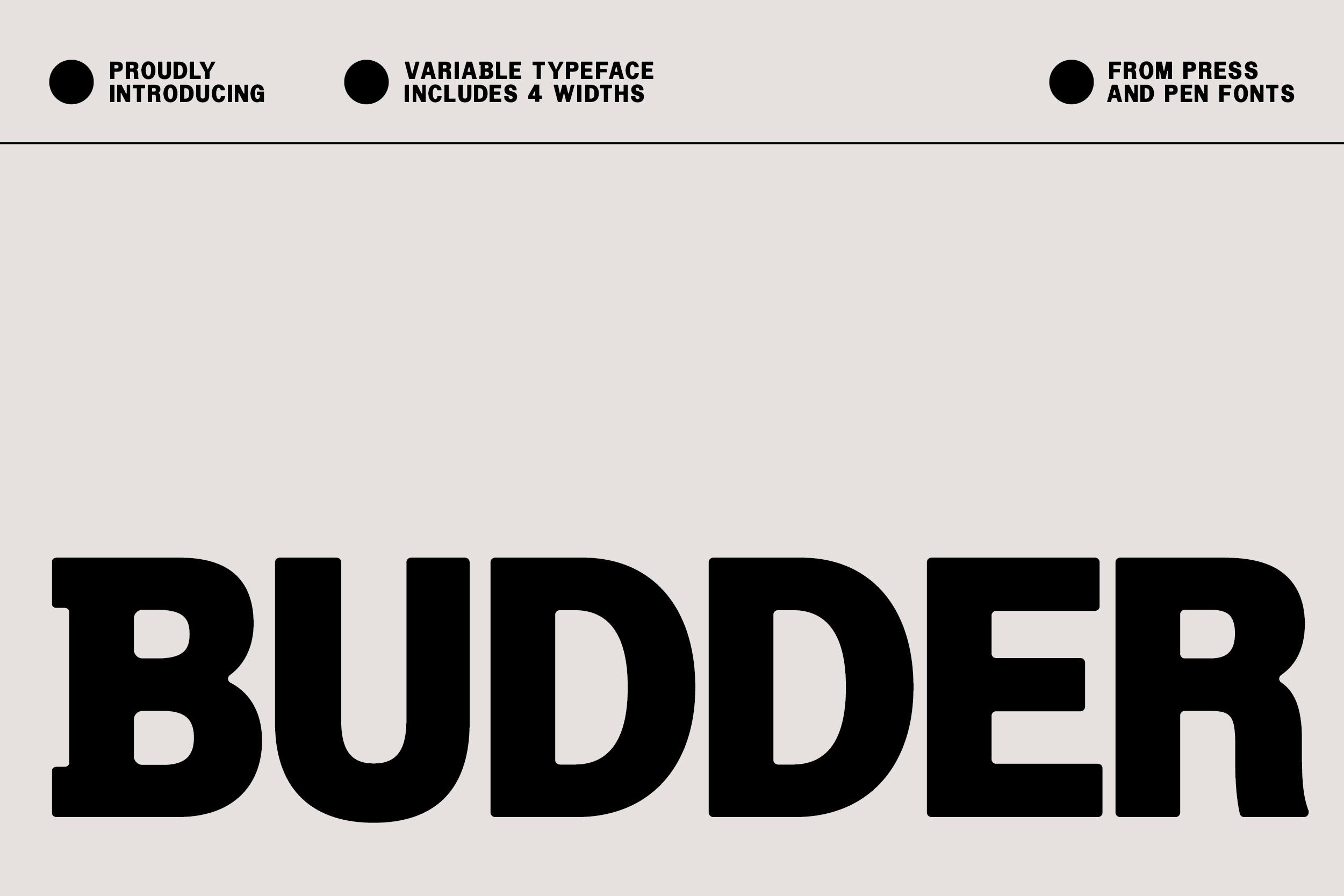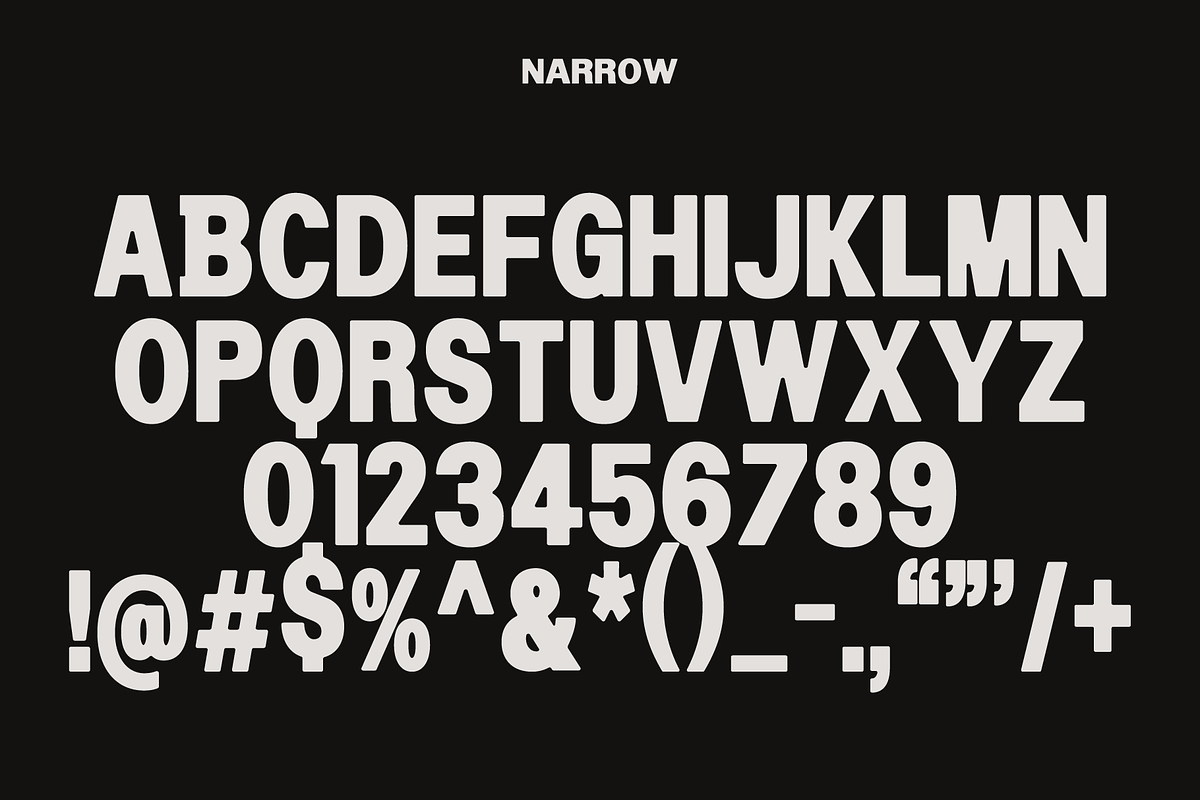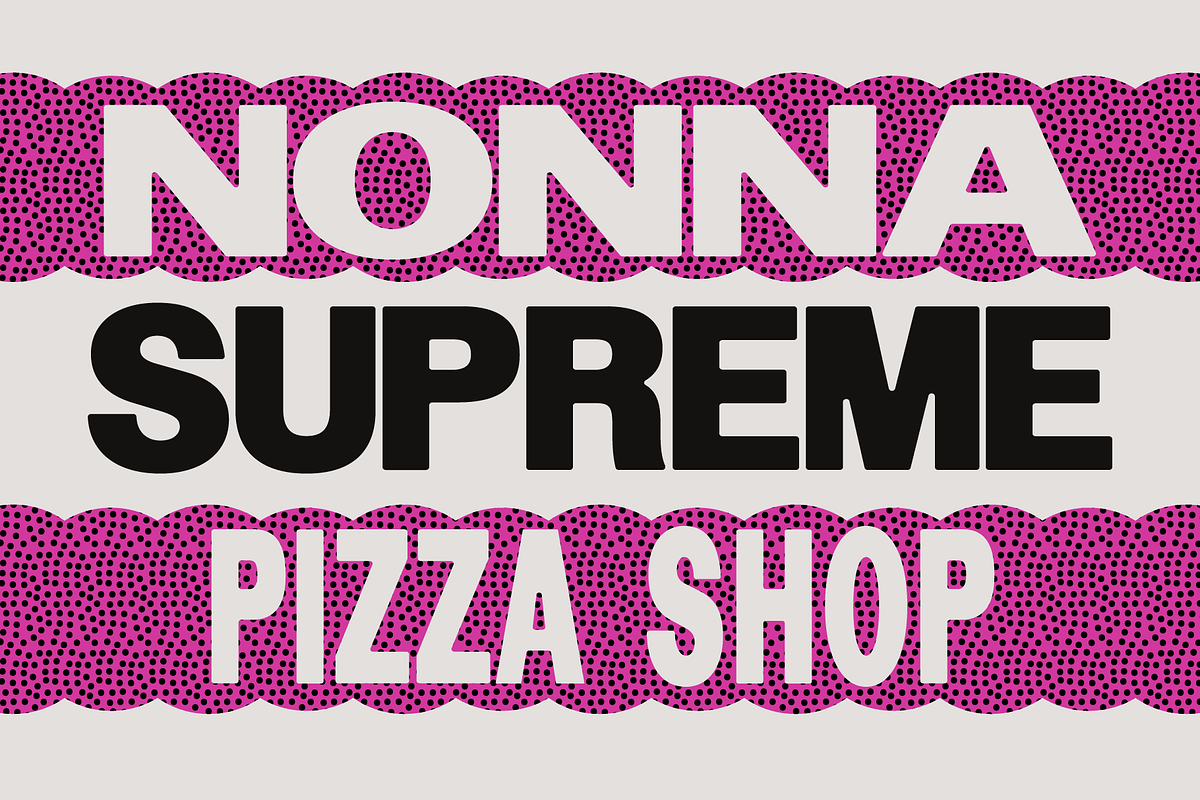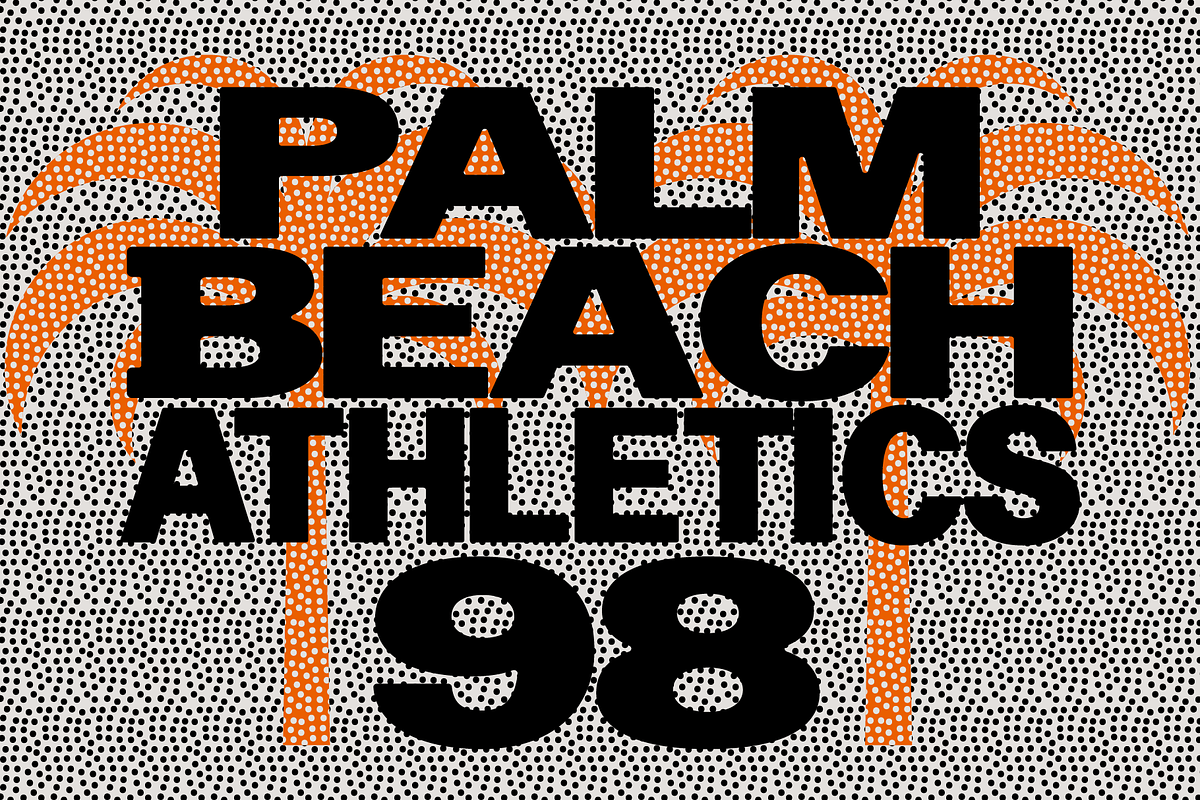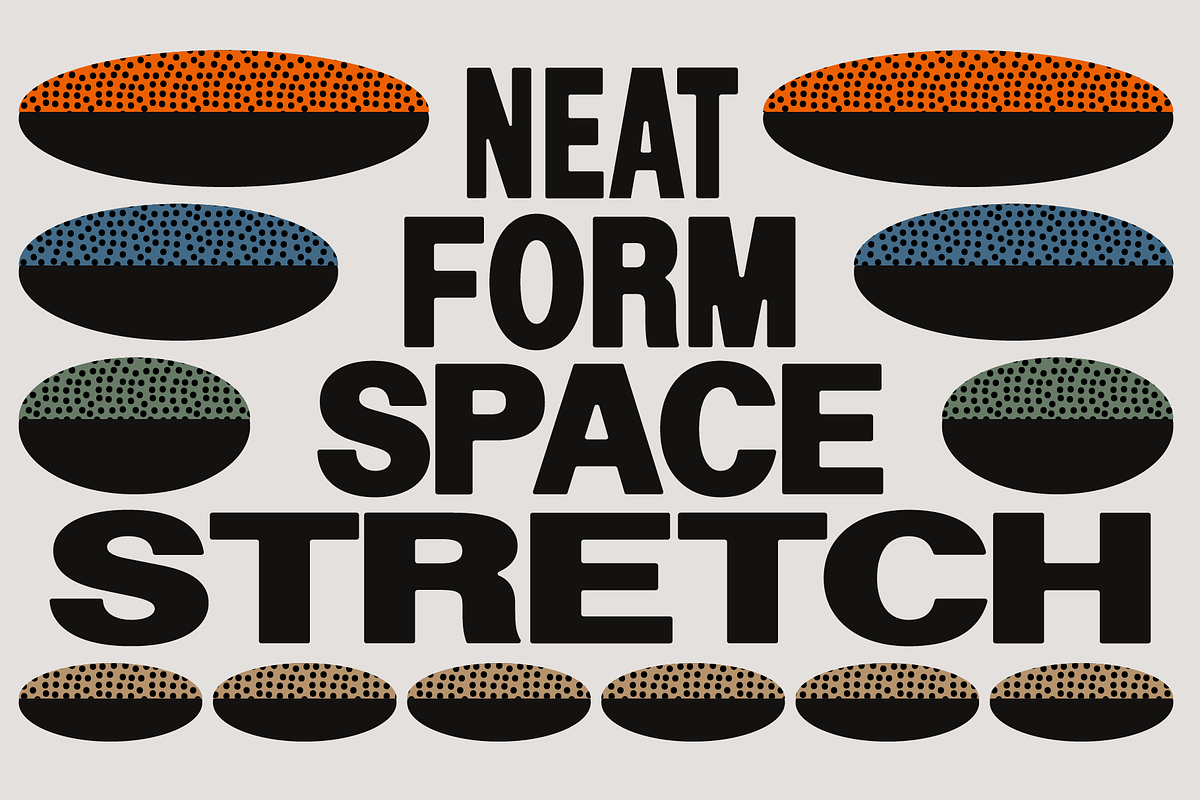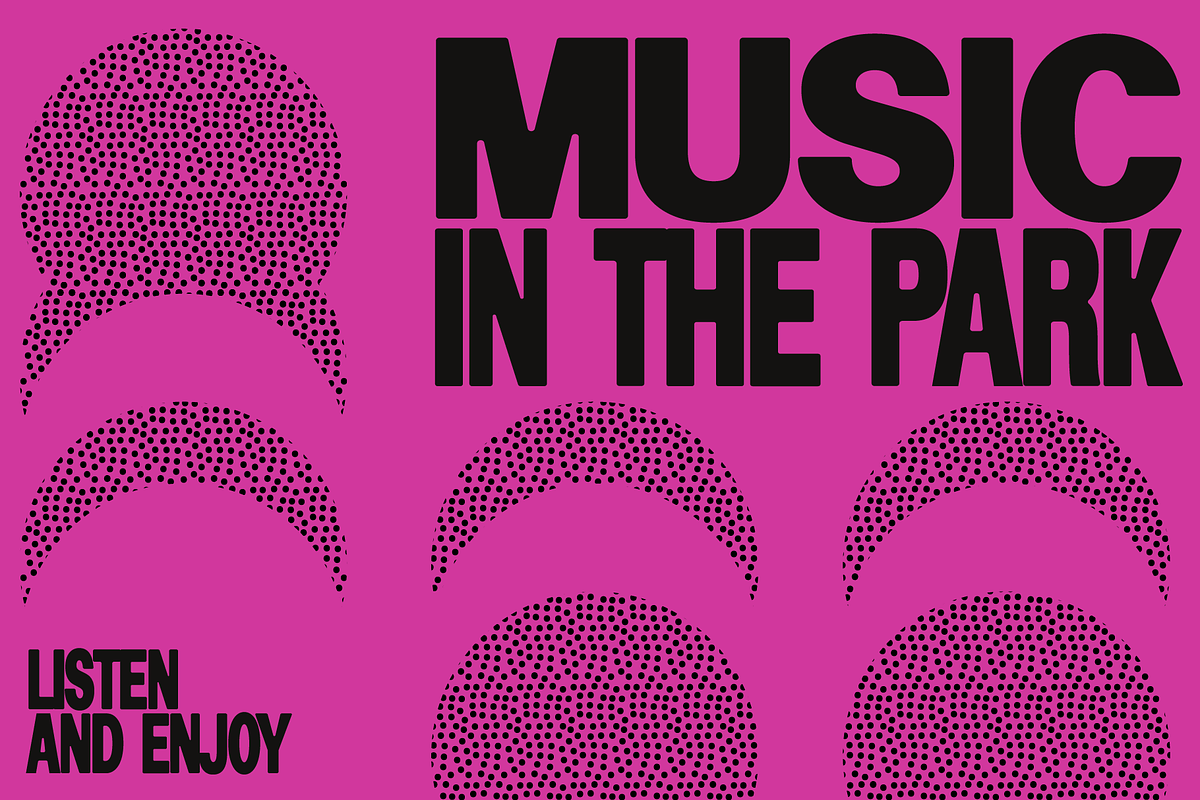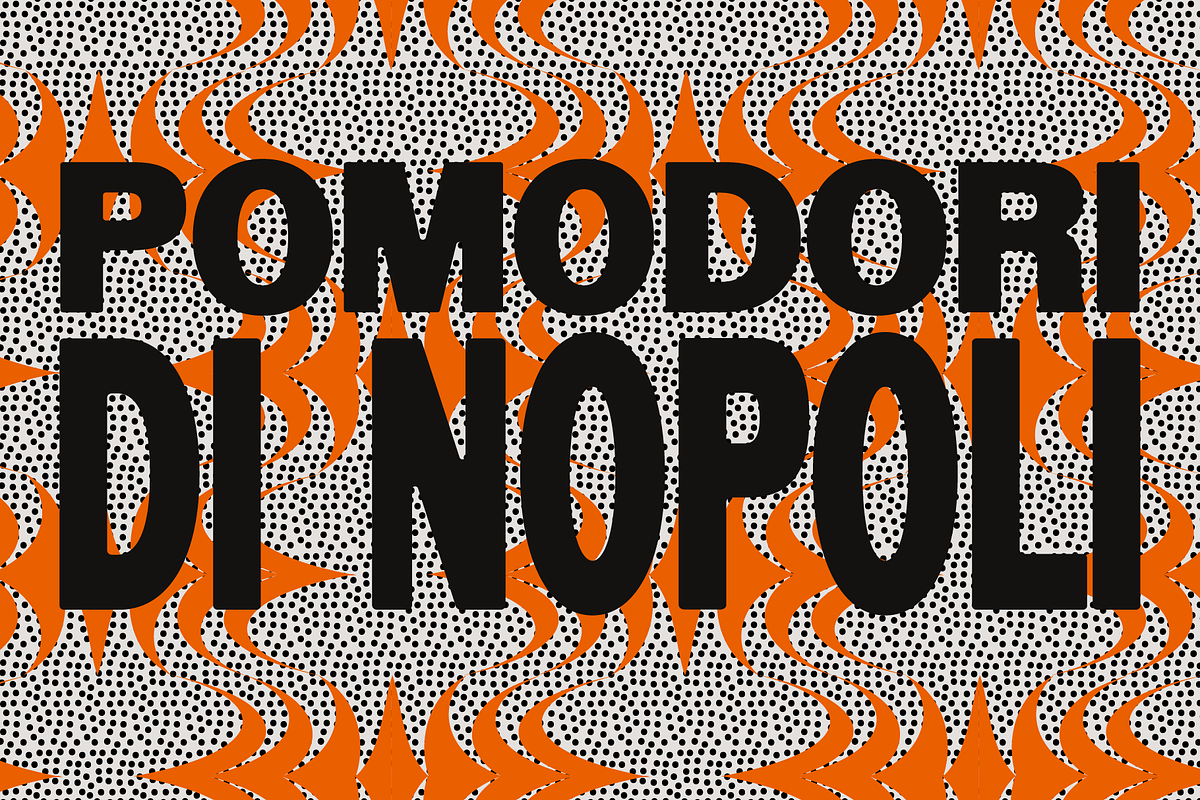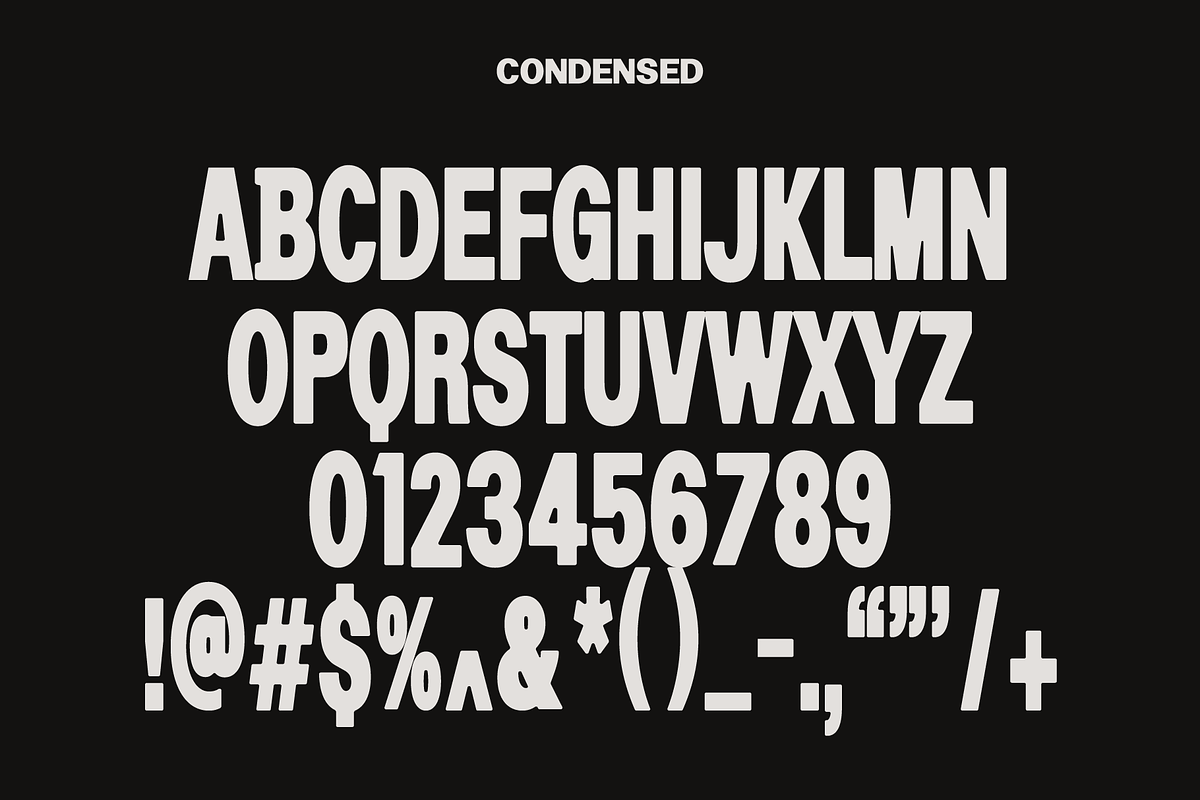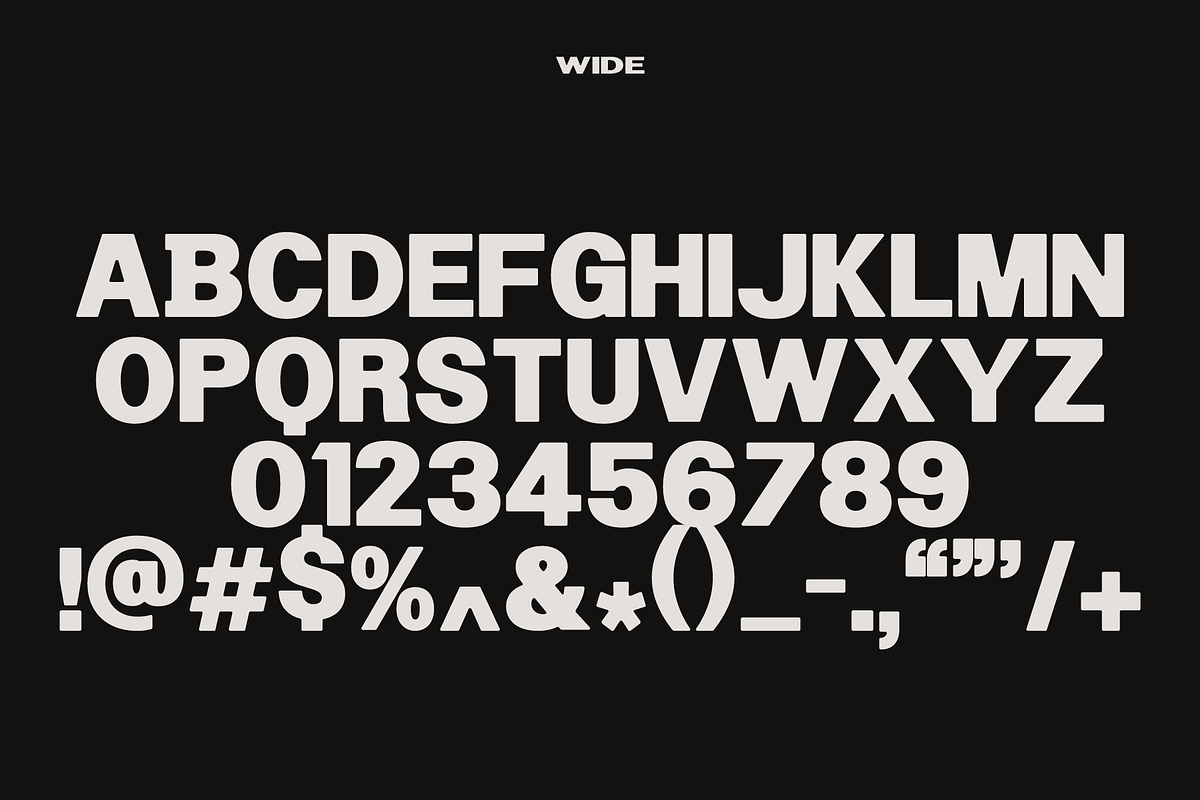
Budder - Variable Typeface Family
Budder — A Bold, Playful Variable Font That Adapts to Any Vibe
Say hello to Budder, a bold sans serif variable font that brings big personality and built-in flexibility. From ultra-condensed to extra-wide, Budder lets you dial in the perfect width for standout headlines, punchy packaging, modern logos, and anything else that needs a confident typographic voice.
With soft, slightly rounded corners and chunky letterforms, Budder feels warm, fun, and full of character — without losing its bold impact. Whether you're creating a brand identity, launching a product, or crafting eye-catching social content, Budder is the kind of font that gets noticed.
What’s Included: • Full variable font with width axis • 4 static widths (Condensed, Narrow, Wide, Extra Wide) • All caps A–Z, numbers, punctuation, and symbols • Smooth curves and bold forms for maximum versatility • Great for branding, packaging, posters, merch, and more
Budder blends attitude with approachability — a typeface that stretches to fit your boldest ideas.